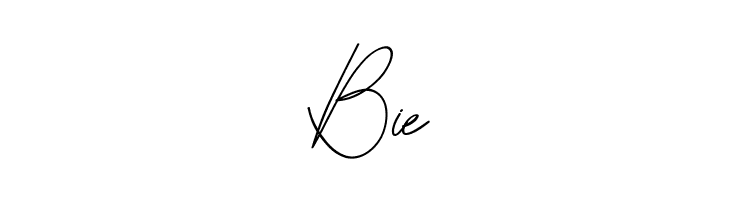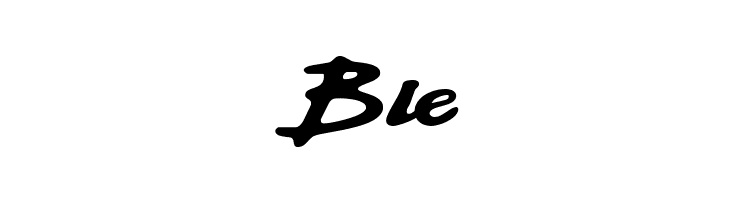
A bold, cursive font with smooth, connected lines and a handwritten feel.
A fluid and elegant script font with a handwritten feel.
An ornate, decorative font with intricate swirls and flourishes.
A circuit-inspired font with intricate line patterns and a futuristic feel.
A bold, graffiti-inspired font with sharp, angular lines and a rebellious aesthetic.
A classic serif font with elegant strokes and refined serifs.
A playful, tall, and narrow font with consistent stroke width.
A playful, rounded font with tall, narrow letters and smooth curves.
A sleek, italicized font with elongated, narrow characters for a modern look.
A bold, playful font with thick, rounded strokes and a whimsical style.